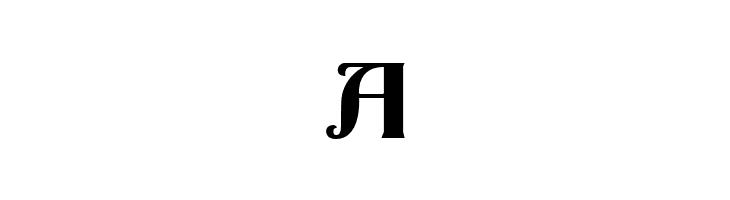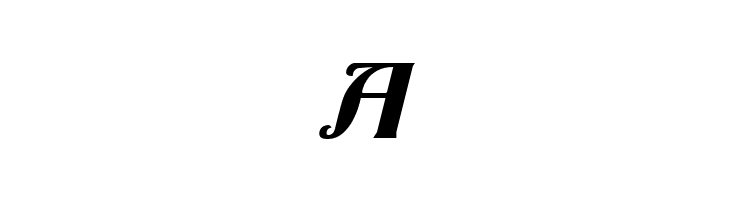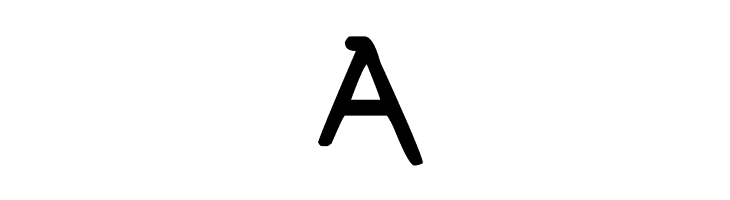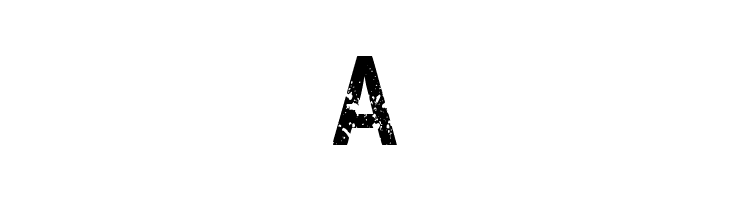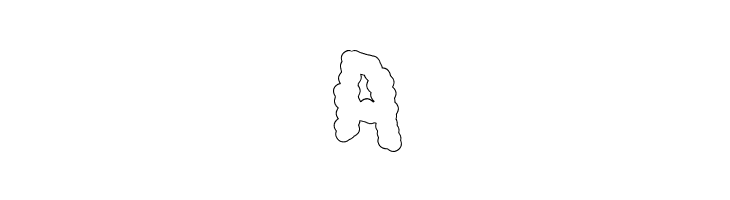
A rugged, stencil-like font with a distressed, spray-painted texture.
A bold, geometric stencil font with an industrial aesthetic.
A bold, distressed font with a vintage, industrial aesthetic.
Polygonal, iconographic set with numbers, letters, and symbols in octagonal shapes.
A bold, decorative font with high contrast and elegant flourishes.
An elegant, high-contrast decorative font with intricate details.
A high-contrast, elegant serif font with decorative elements.
A futuristic, geometric font with a digital, mechanical aesthetic.
A modern, geometric font with rounded edges and a clean, minimalistic style.
A playful, hand-drawn font with a whimsical and friendly style.
A playful, hand-drawn font with tall, narrow characters and a whimsical style.
A bold, geometric font with sharp angles and a modern style.
A vintage serif font with a distressed, textured appearance.
A classic blackletter font with ornate, angular letterforms and decorative flourishes.
A bold, jagged font with sharp, angular edges and a dynamic, aggressive style.
A bold, angular font with a fantasy-inspired geometric style.
A classic blackletter font with ornate, medieval-inspired letterforms.
A bold, ornate font with a medieval, historical style.
A pixelated, retro-style font with a blocky, geometric design.
Ornate vintage decorative elements and label frames.
A rugged, hand-drawn font with a chaotic, ancient script vibe.
A bold, slab serif font with strong vertical lines and high contrast.
A decorative Old English style font with intricate and ornate letterforms.
Ornate floral illustration dingbat set with vintage flair.
A decorative, retro-style font with dot and line patterns, ideal for headlines.
A bold, outlined font with a modern yet vintage style.
A bold, flowing script font with a lively and dynamic character.